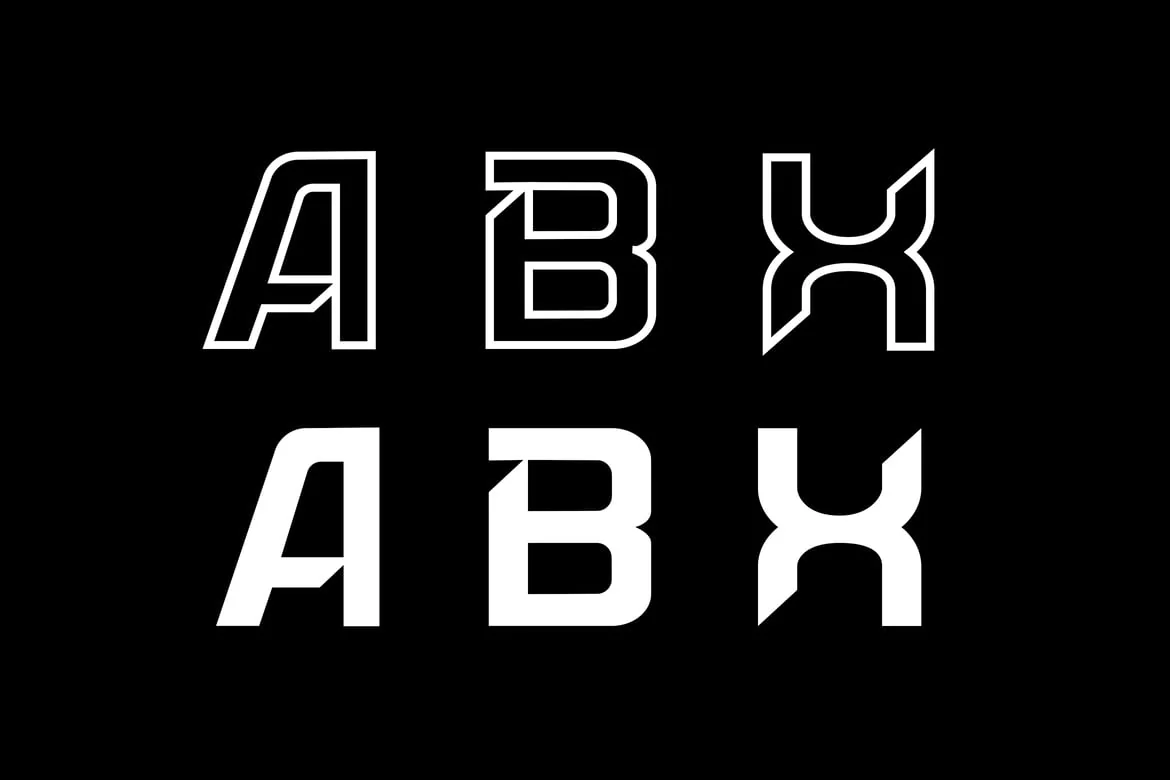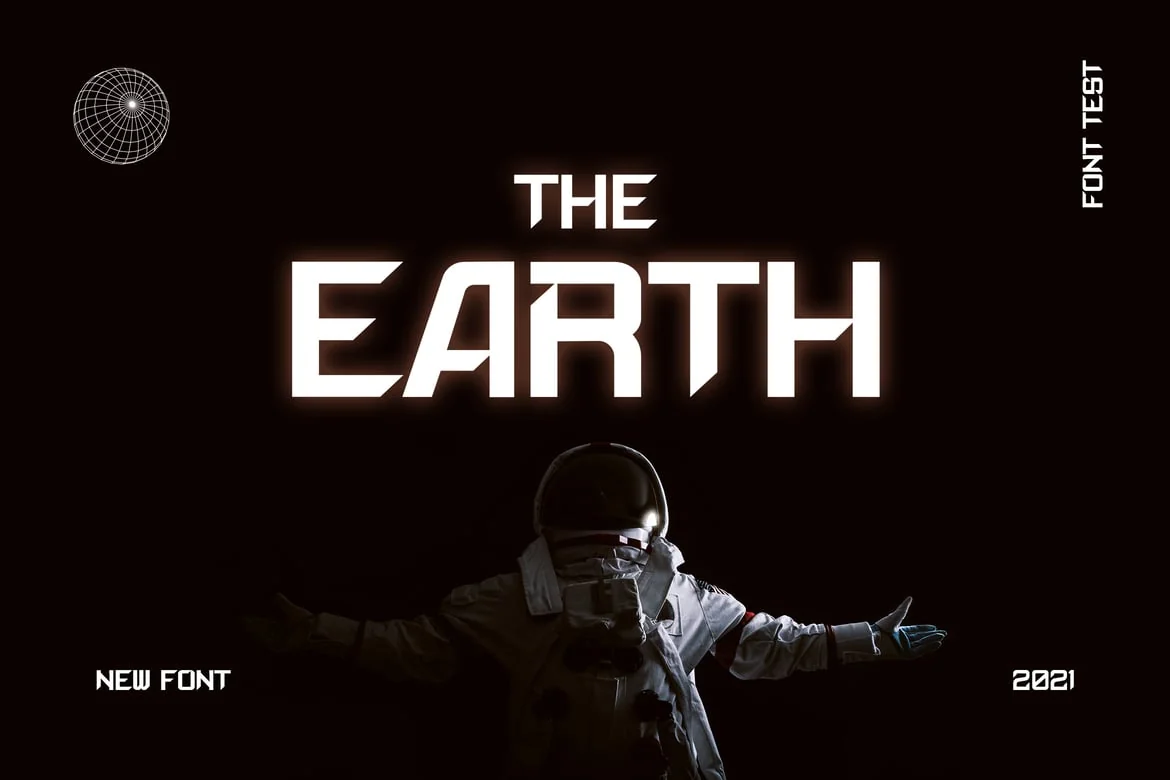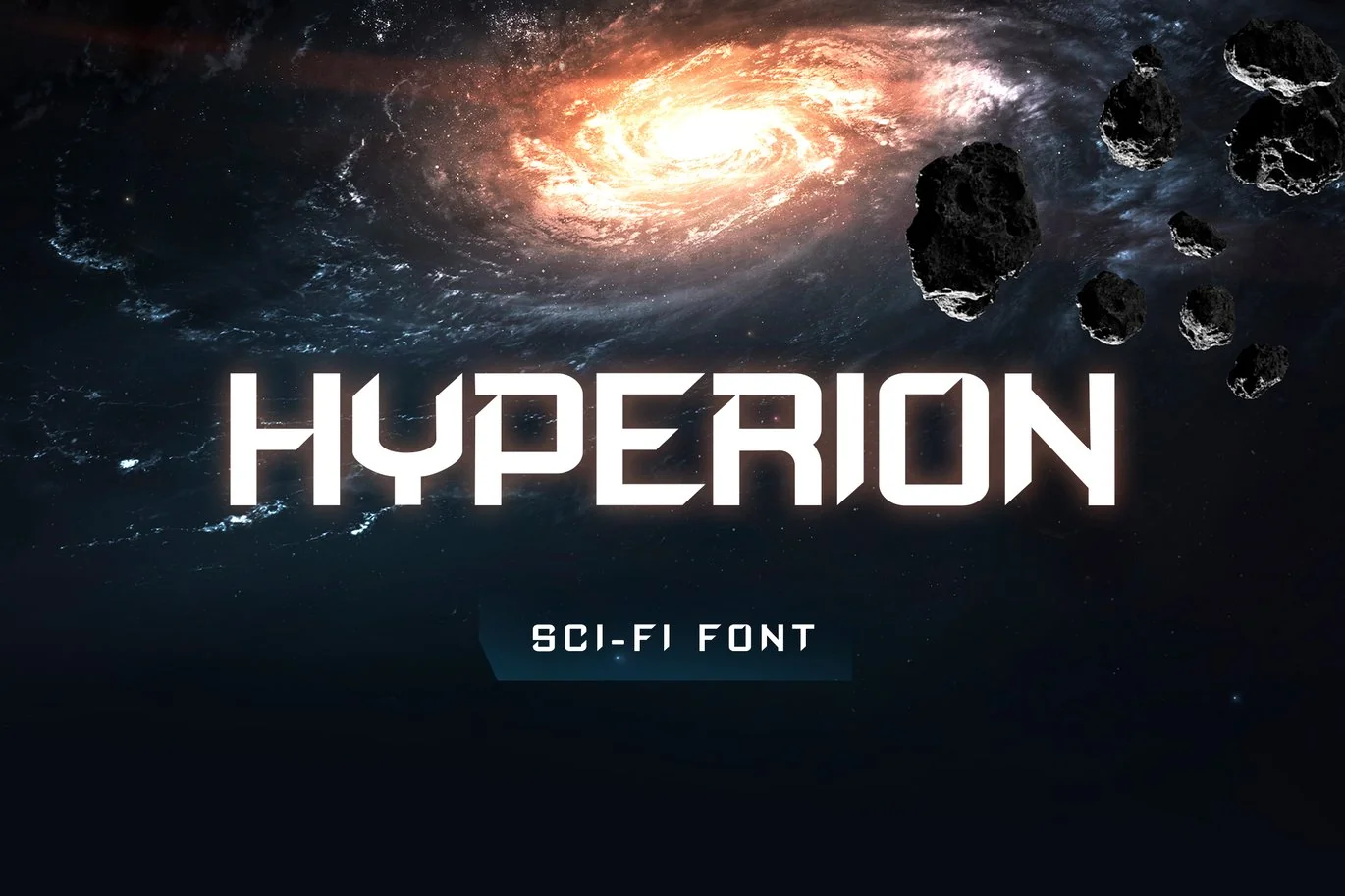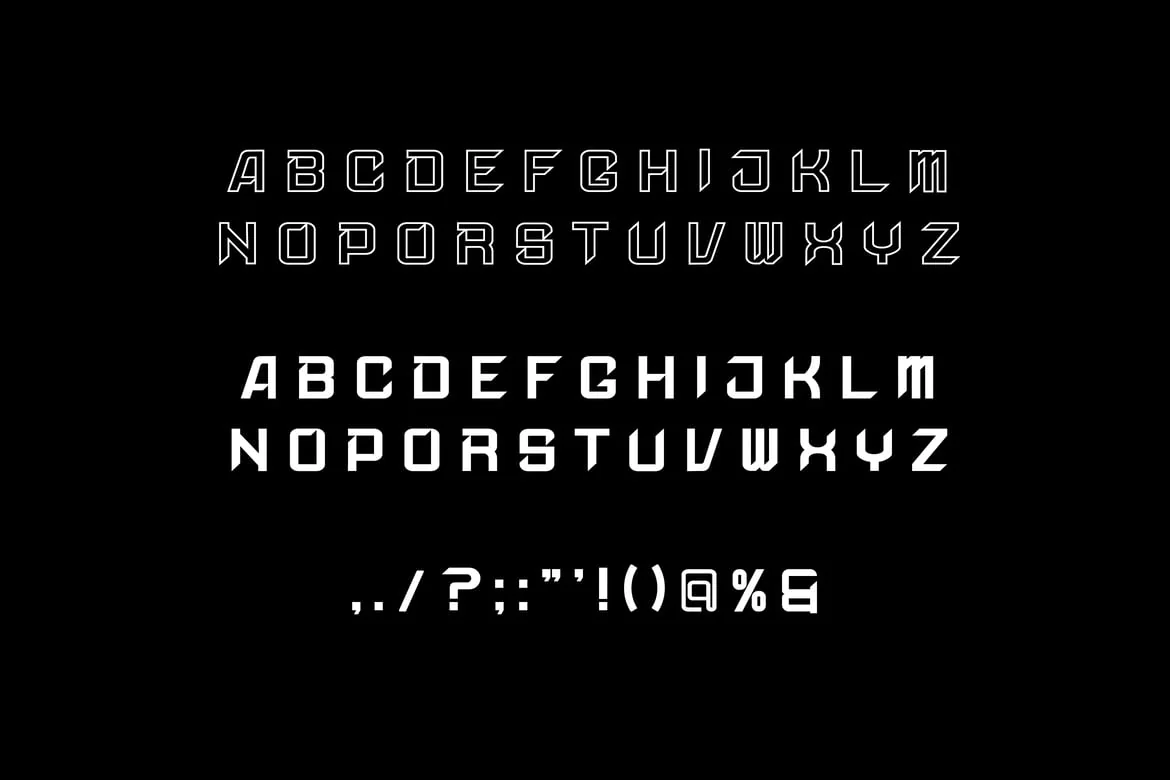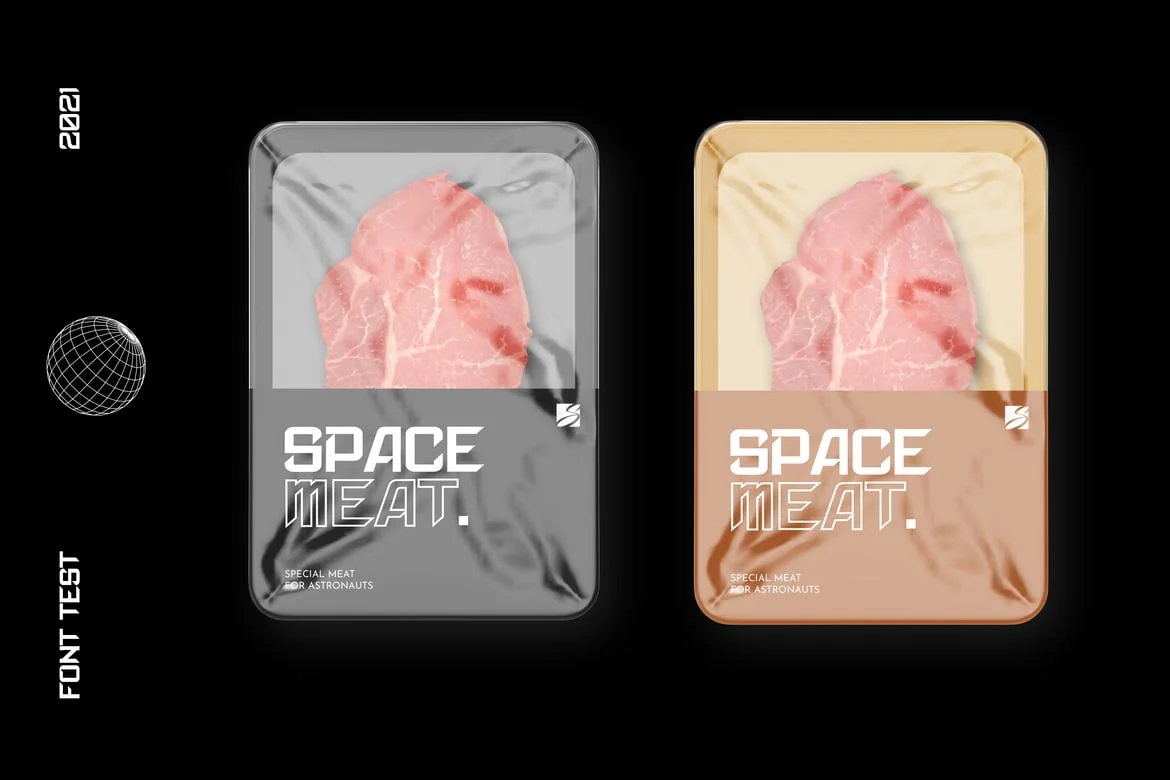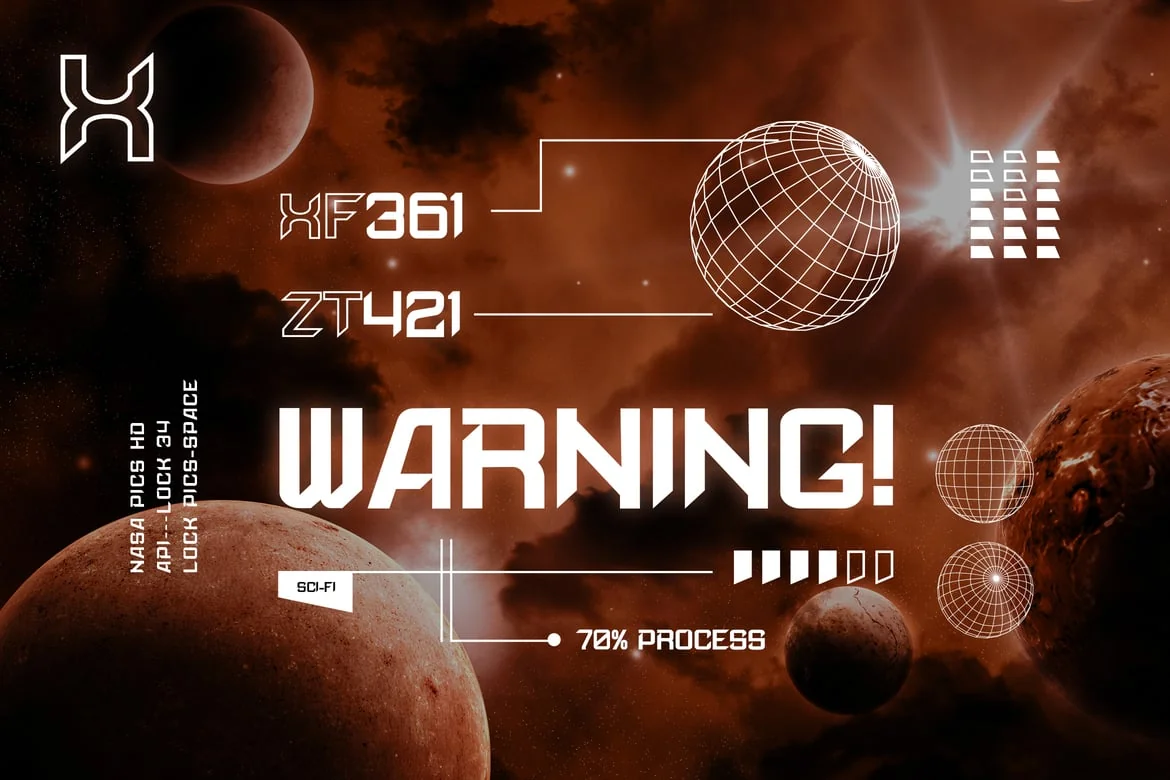
Hyperion Sans Serif Modern Font
Hyperion modern and futuristic Sans Serif font, inspired by sci-fi and technology, so we designed the font with a modern feel . Very playful and science-friendly well suited for branding, magazine, marketing design, technology, sci-fi design, bag, headlines, and display design pieces as well as short length text blocks.